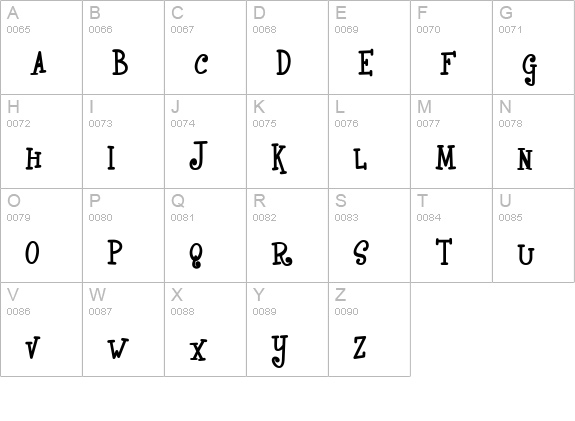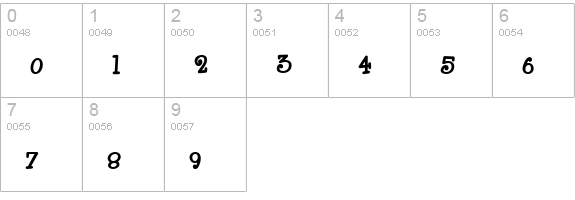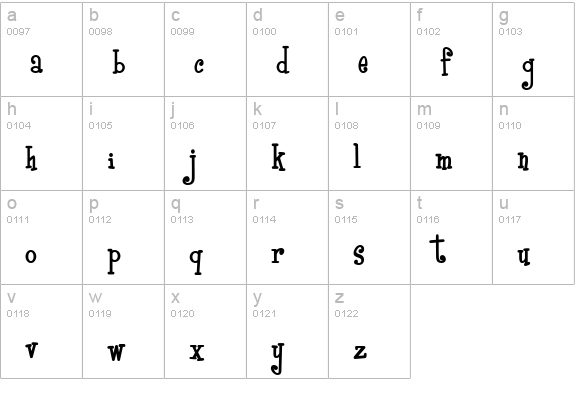
Boyz R Gross NF Font Details
Boyz R Gross NF font is a fun and quirky typeface that exudes a playful and rebellious vibe. With its bold and exaggerated letterforms, this font is perfect for adding a touch of attitude to your designs. The uneven strokes and slanted angles give Boyz R Gross NF a rough and edgy look, making it ideal for creating eye-catching headlines and posters. What's even better is that Boyz R Gross NF font is available for free download at FontsMarket.com. This means you can easily add this unique font to your collection without having to spend a dime. Whether you're working on a project that calls for a bit of mischief or simply want to inject some personality into your designs, Boyz R Gross NF font is sure to make a bold statement. Download it today and let your creativity run wild!